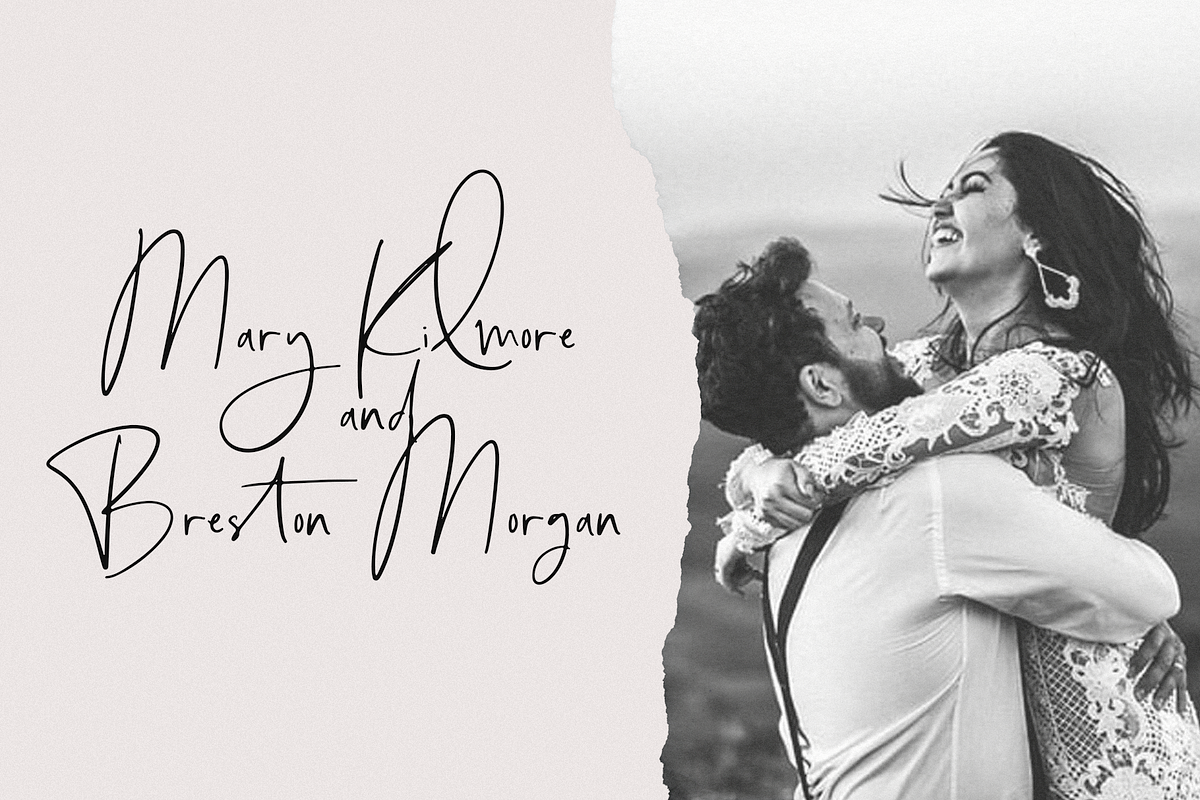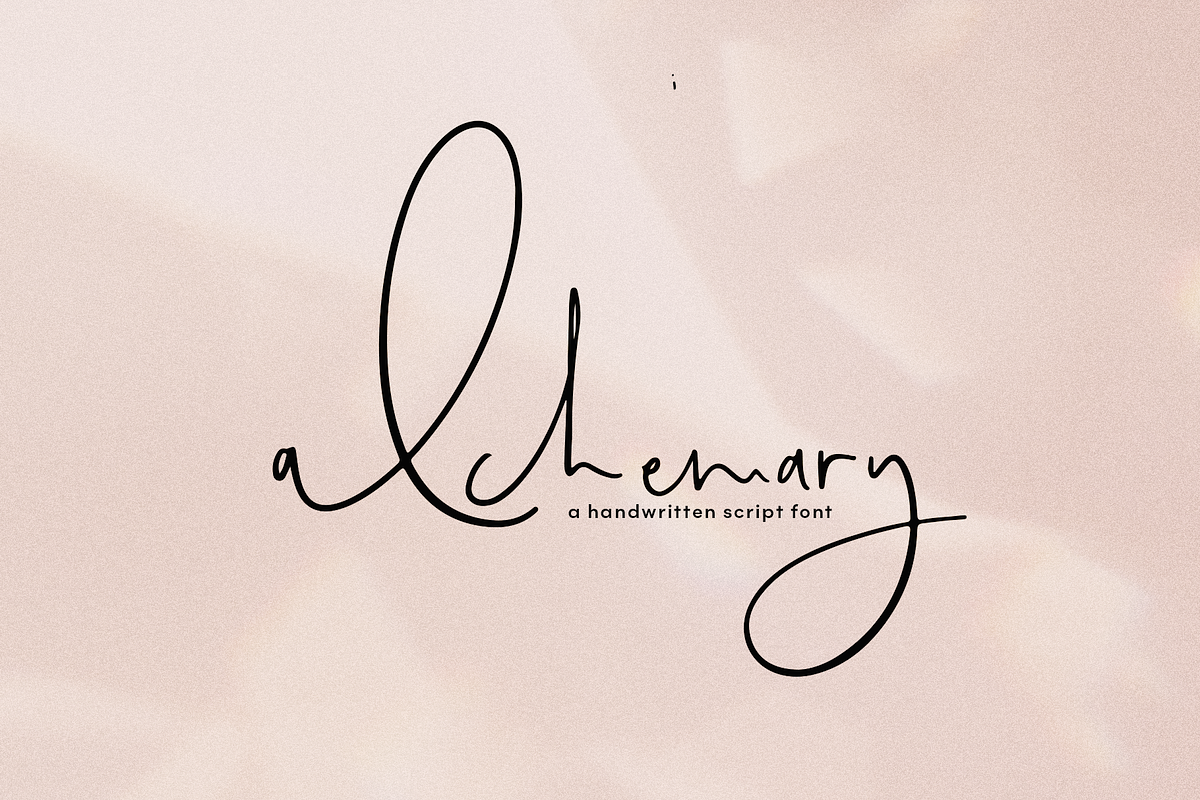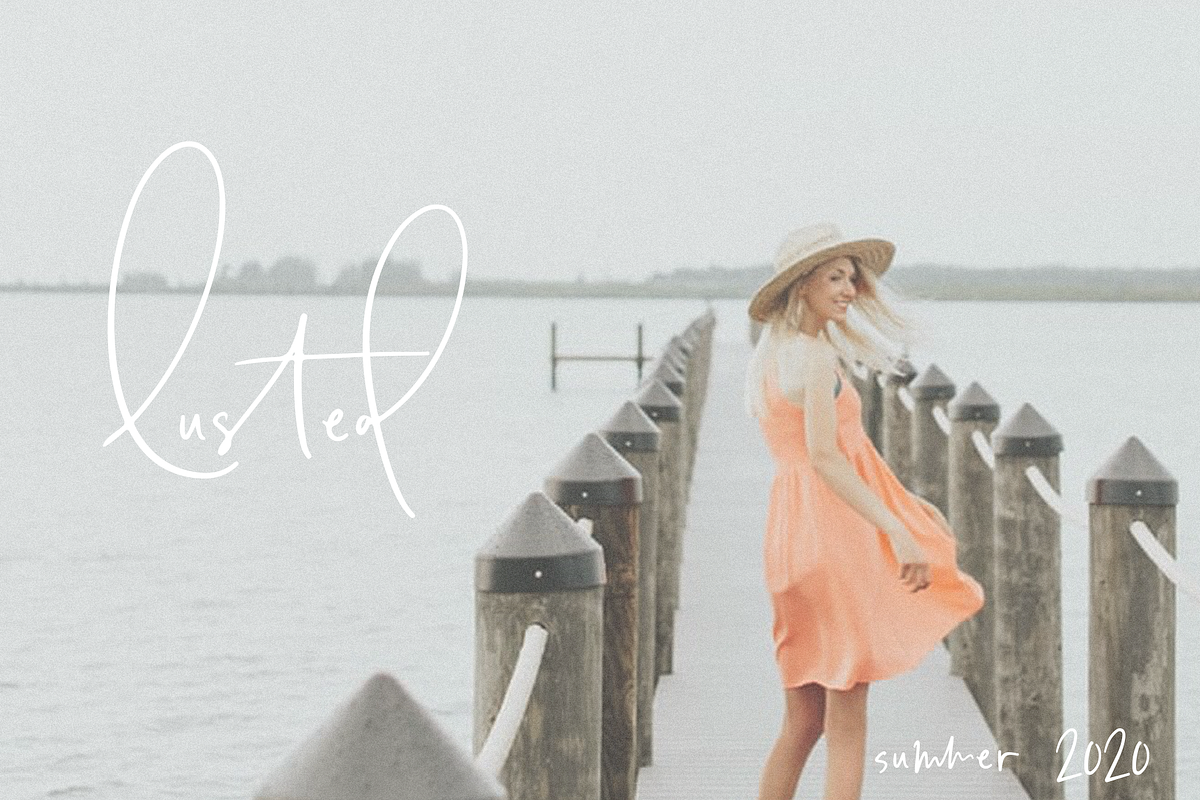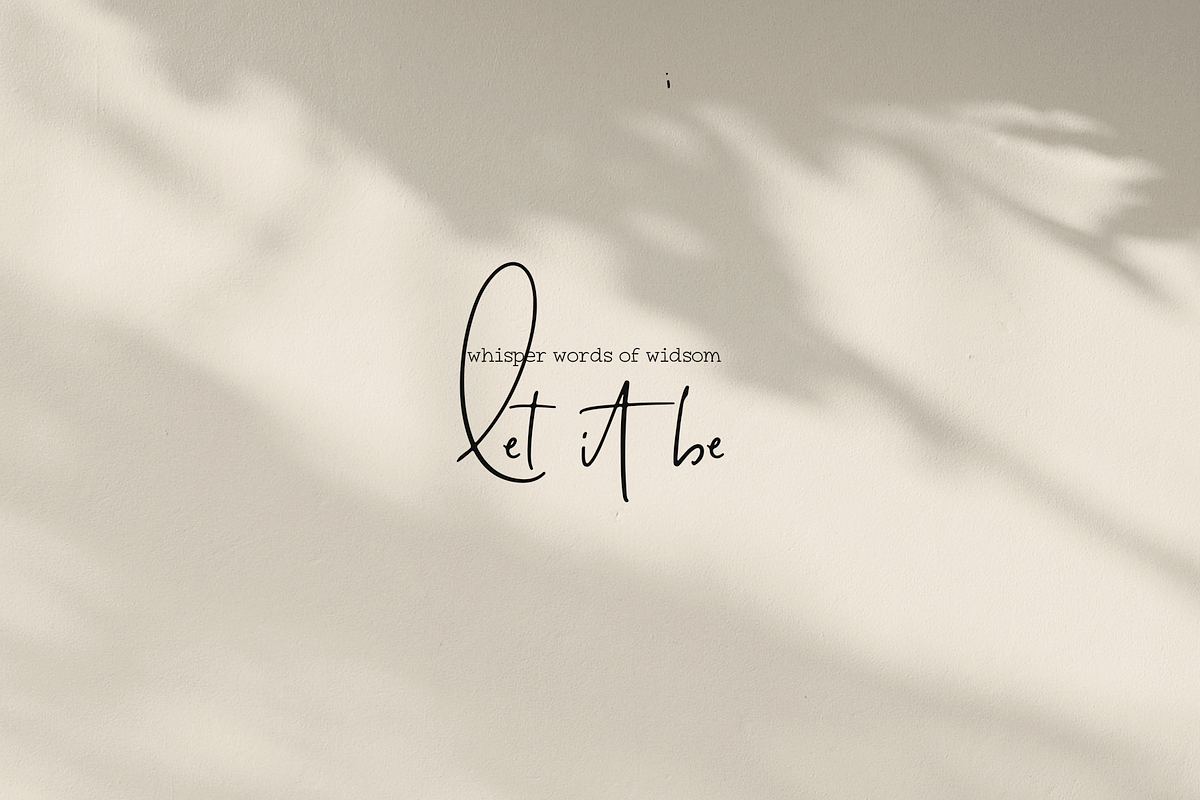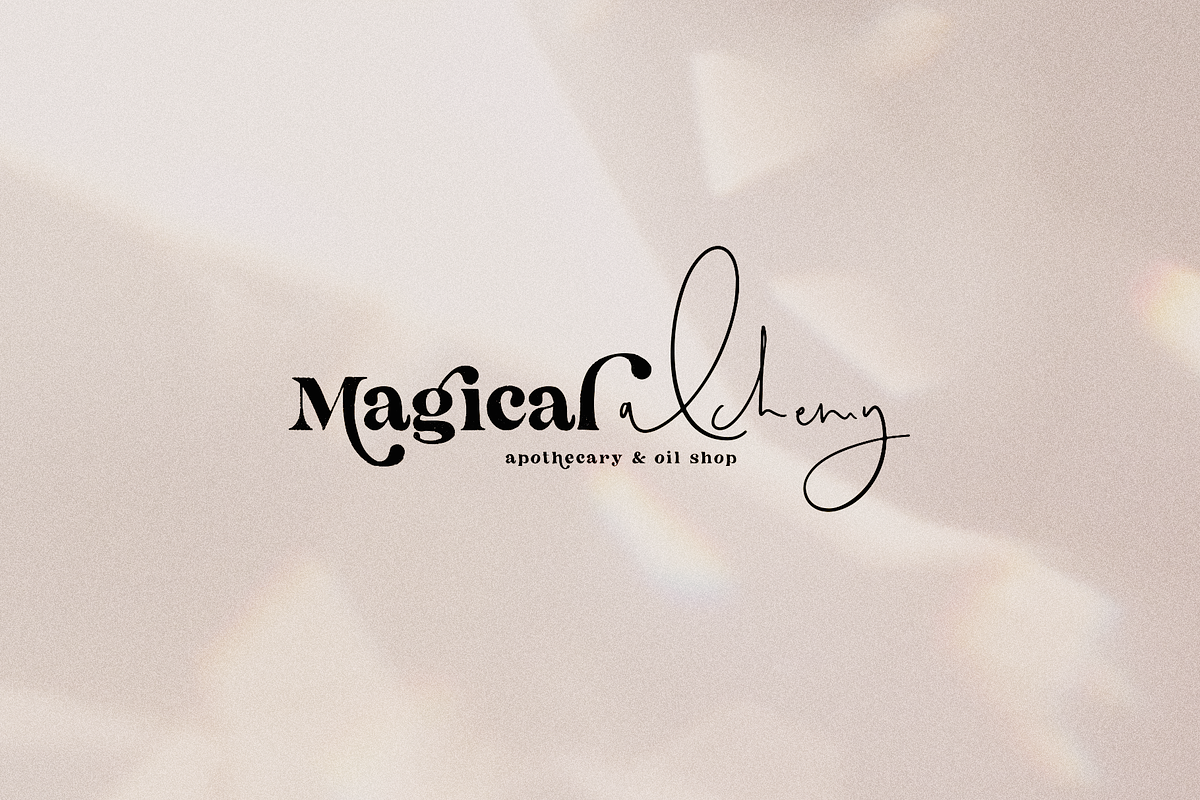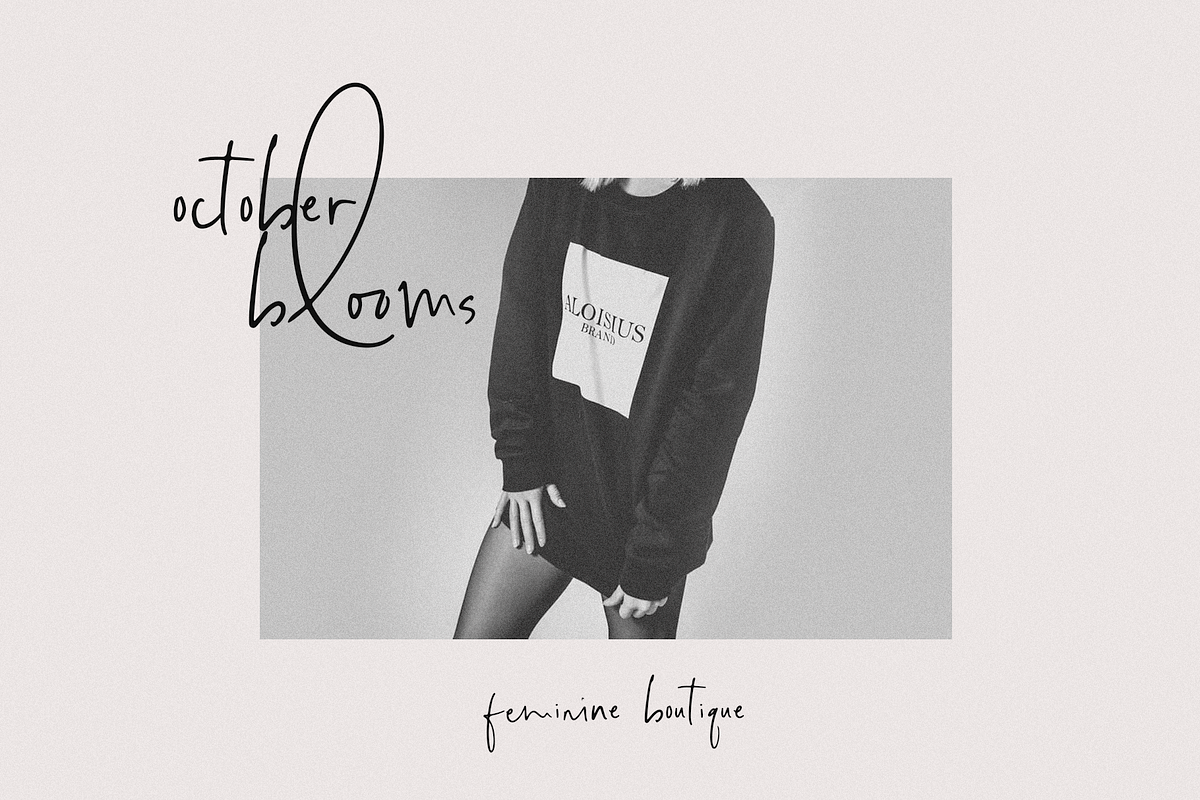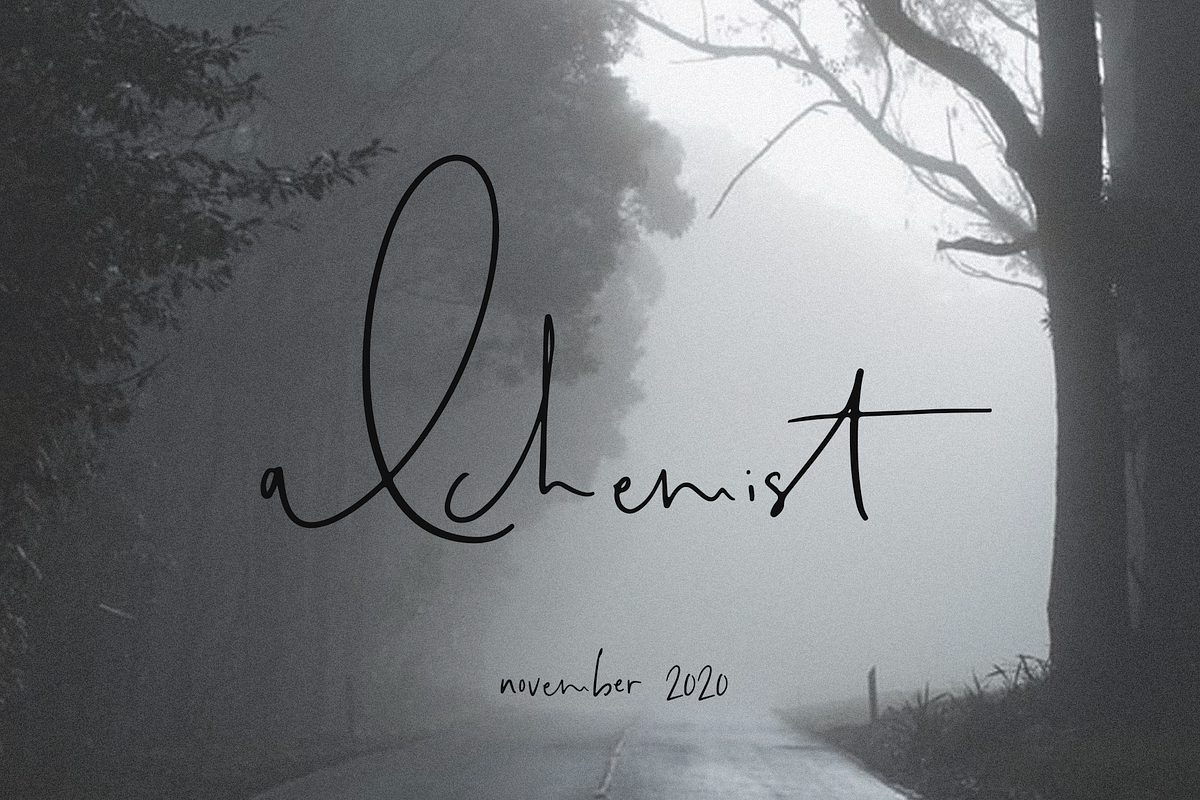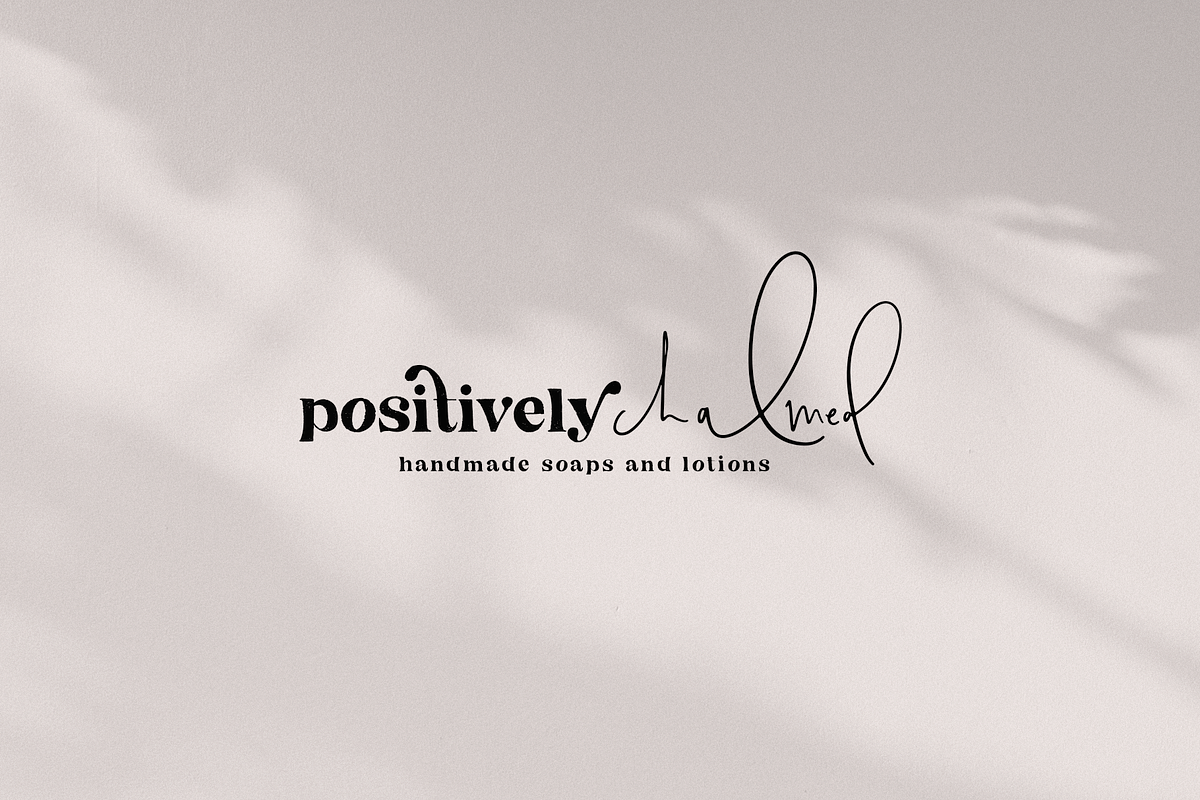
Alchemary | Handwritten Font
Alchemary is a carefree handwritten font. This font has a few exaggerated letters to create an unique look.
Alchemary is perfect for modern projects, headings, blogs, logos, brandings, invitations, and more! It pairs wonderfully with the serif (The California) shown in the previews